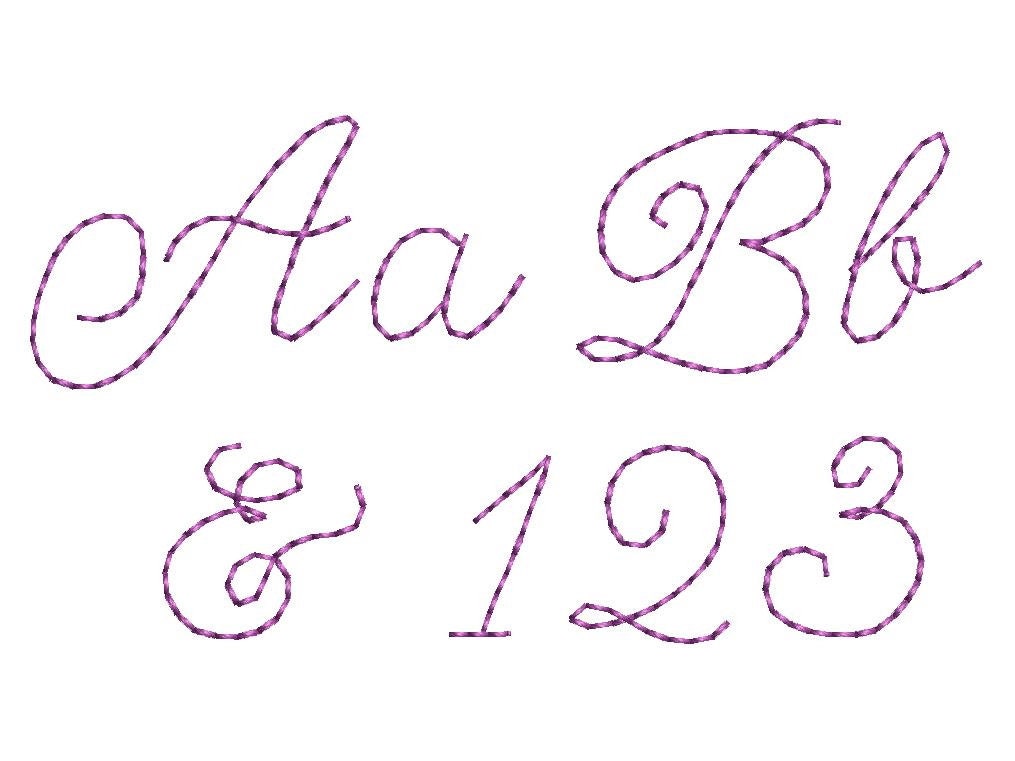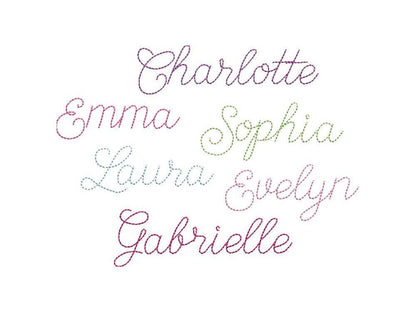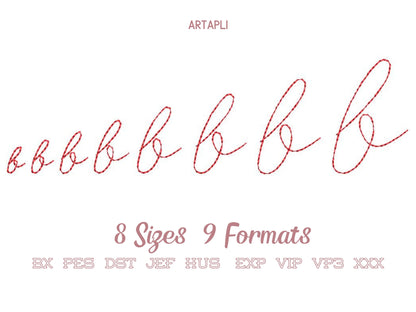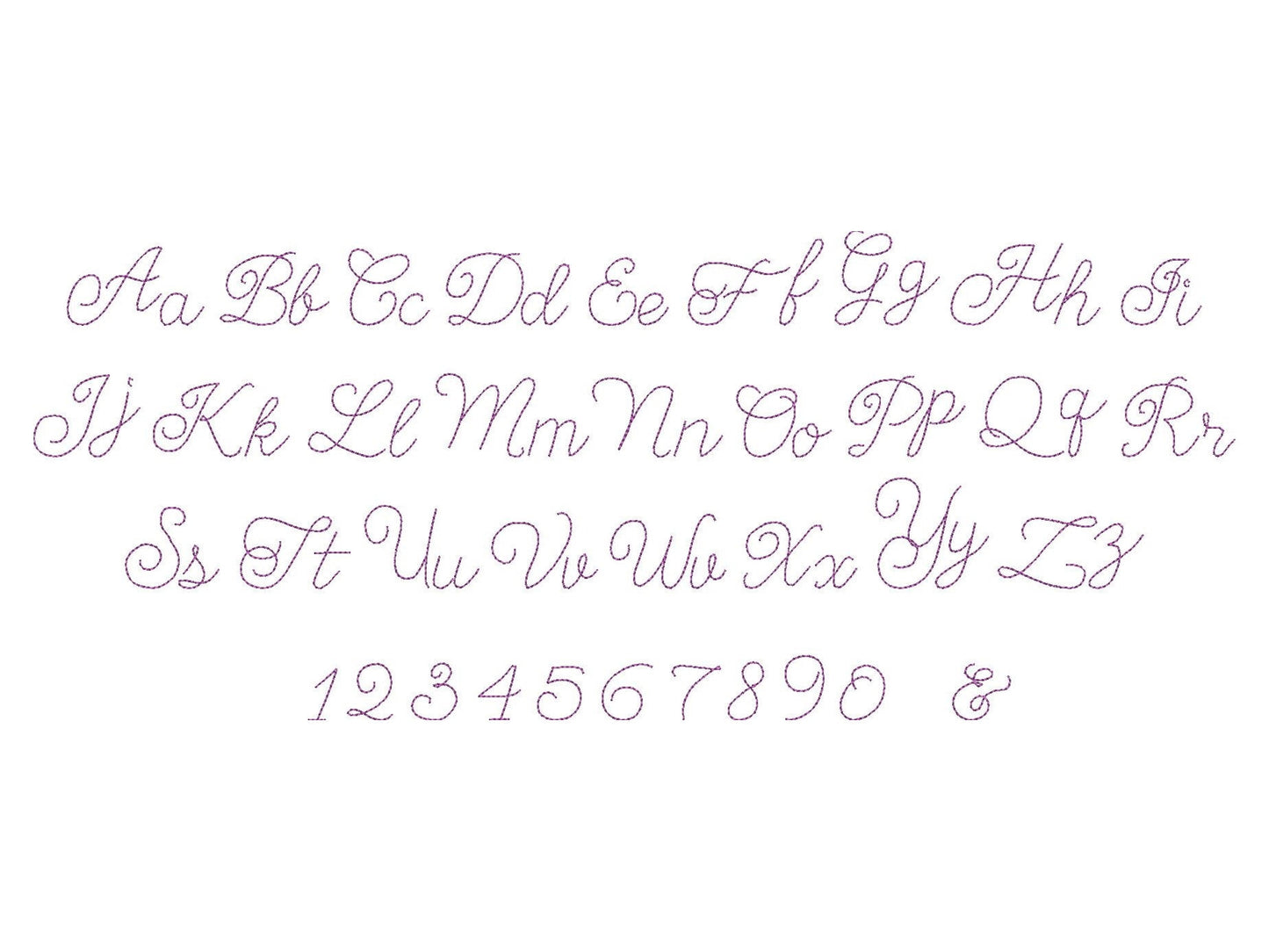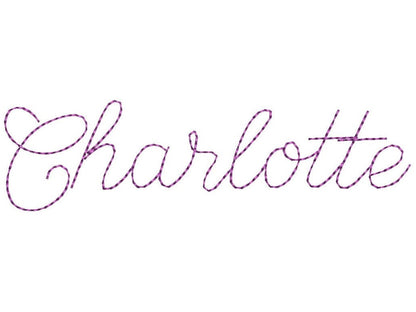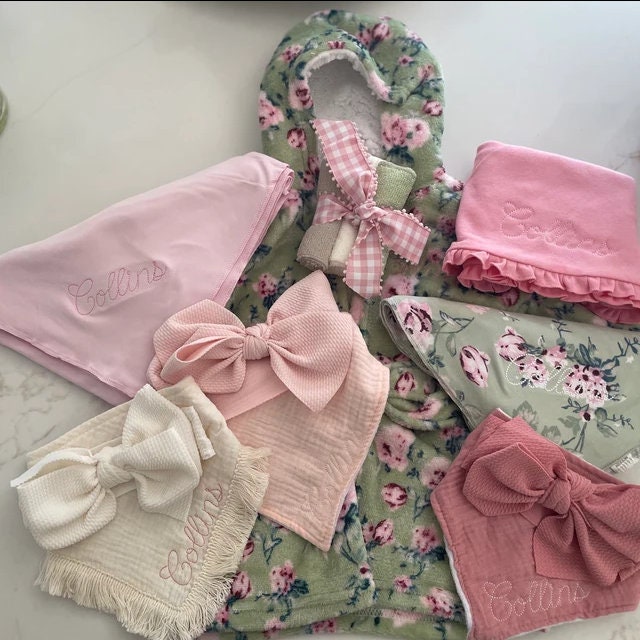
Quick Light Chain Stitch Script Handwritten Mini Font
Included: Uppercase A-Z, Lowercase a-z, Numbers 0-9, Punctuation
A quick, light handwritten script with a thin line, in mini sizes. Great for kids' names, necklines, pockets and small gifts.
Uppercase and lowercase letters, numbers 0 to 9 and an ampersand. Eight mini sizes: 0.5, 0.7, 0.9, 1.1, 1.4, 1.7, 2.1 and 2.5 inches. Light stitching that sews out fast.
• Light thin-line handwritten script font
• Uppercase, lowercase, numbers 0 to 9, ampersand
• 8 sizes, 0.5 to 2.5 in